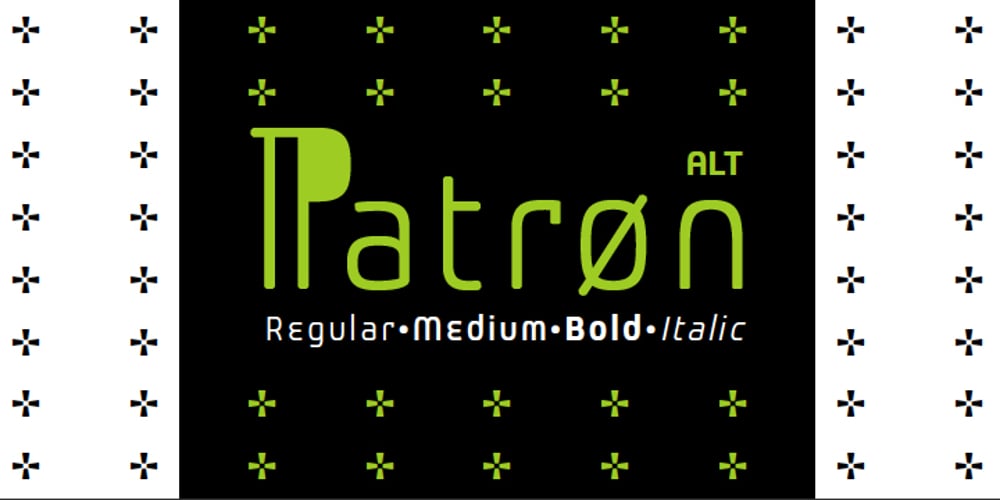
Patron Alt
Patron Alt font
Patron Alt Font Family was designed by Matěj Hlaváček and published by Vesturbær. Patron Alt contains 6 styles and family package options. Patron is a modern, mono-linear, sans-serif font family with large x-height and softened edges containing 12 fonts. This typeface was born as a corporate font design for non-profit sector and today it is available for public. At the moment Patron is offered as a PostScript-flavored OTF, but its construction is tuned to display well on screen as well. Works on a TrueType version with individual glyph hinting are being carried out. In addition, Patron has alternative family (Patron Alt) with enhanced personality, suitable mainly for headlines. Patron is graduation work of Matěj Hlaváček at AAAD in Prague, Studio Of Typography. Supervised by František Štorm, Tomáš Brousil and Karel Haloun.